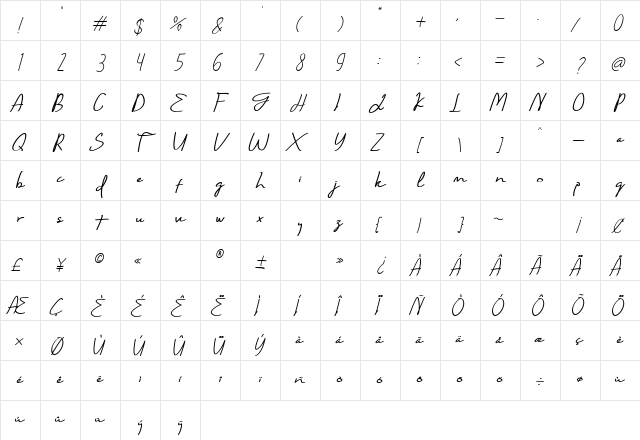
Complete Bonjour De Jong Script glyph index. Displaying only characters natively supported by Bonjour De Jong Script font.
Bonjour De Jong flows with the natural rhythm of handwritten lettering, making it ideal for designs that call for warmth and personal expression.
Font Pairing: Combine Bonjour De Jong with a simple geometric sans for maximum contrast - the tension between flowing curves and clean structure is a classic typographic pairing.
Pro Tip: Use Bonjour De Jong for short runs of text - names, titles, or taglines. Extended body copy in script faces tires the eye quickly.